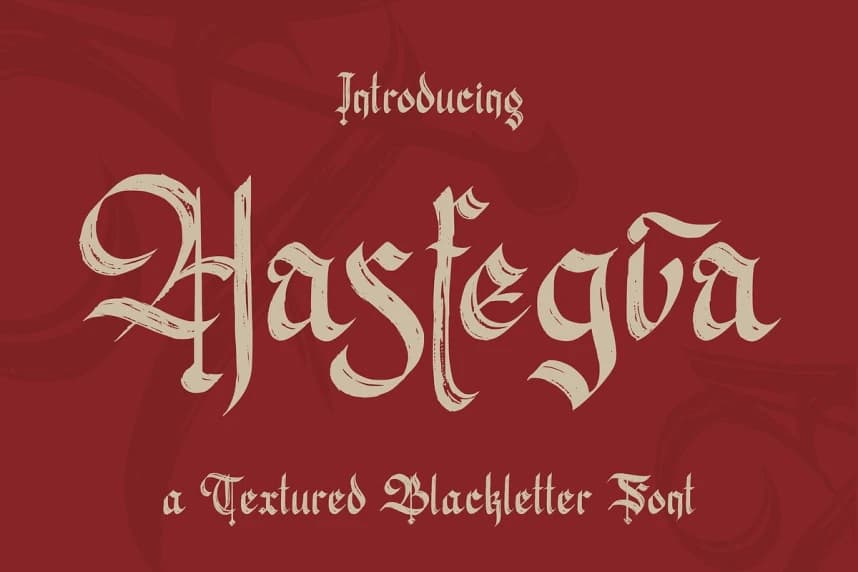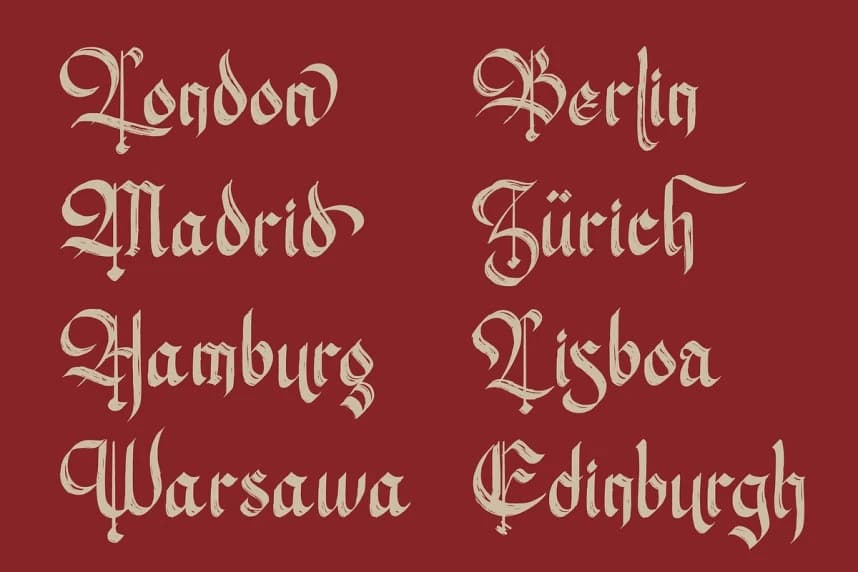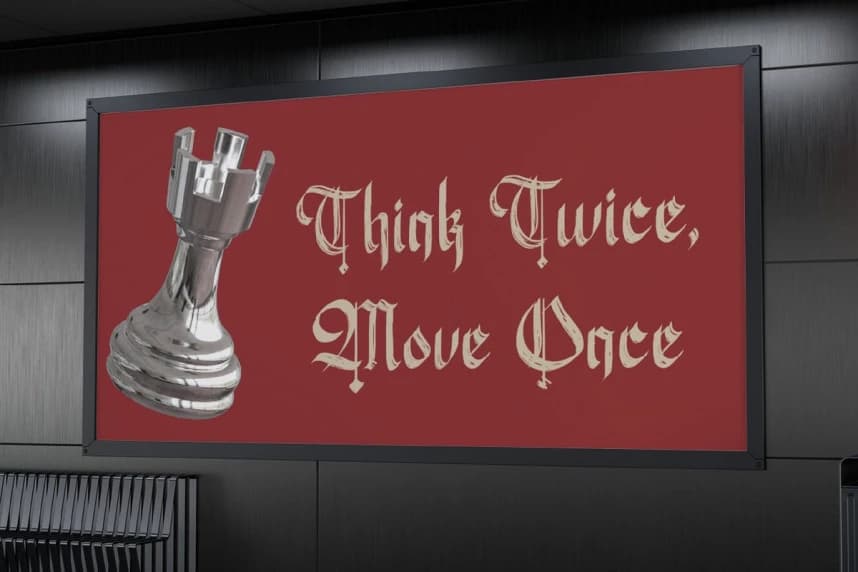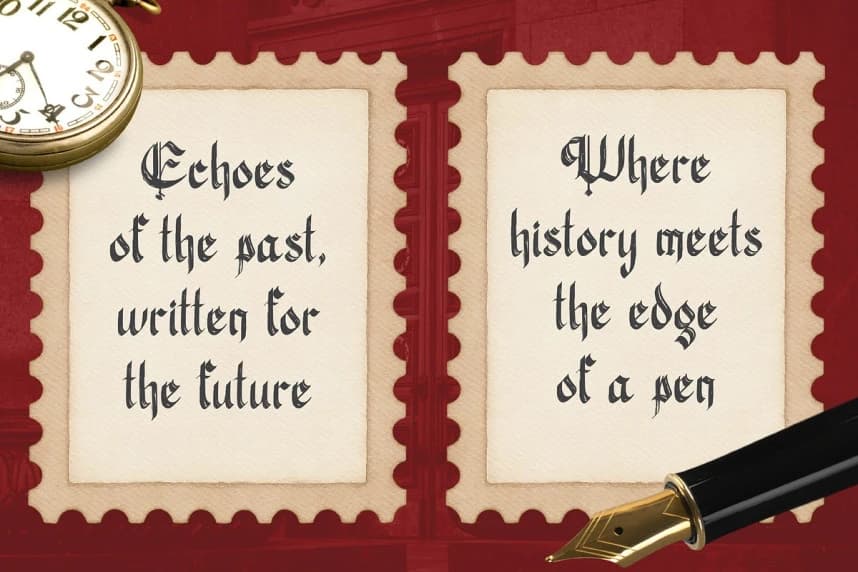
Hasfegia Font
Hasfegia Font is a masterpiece of dark aesthetics, blending the timeless elegance of classic Gothic calligraphy with a raw, organic hand-drawn texture. Each character is meticulously crafted with sharp, aggressive strokes balanced by dynamic curves